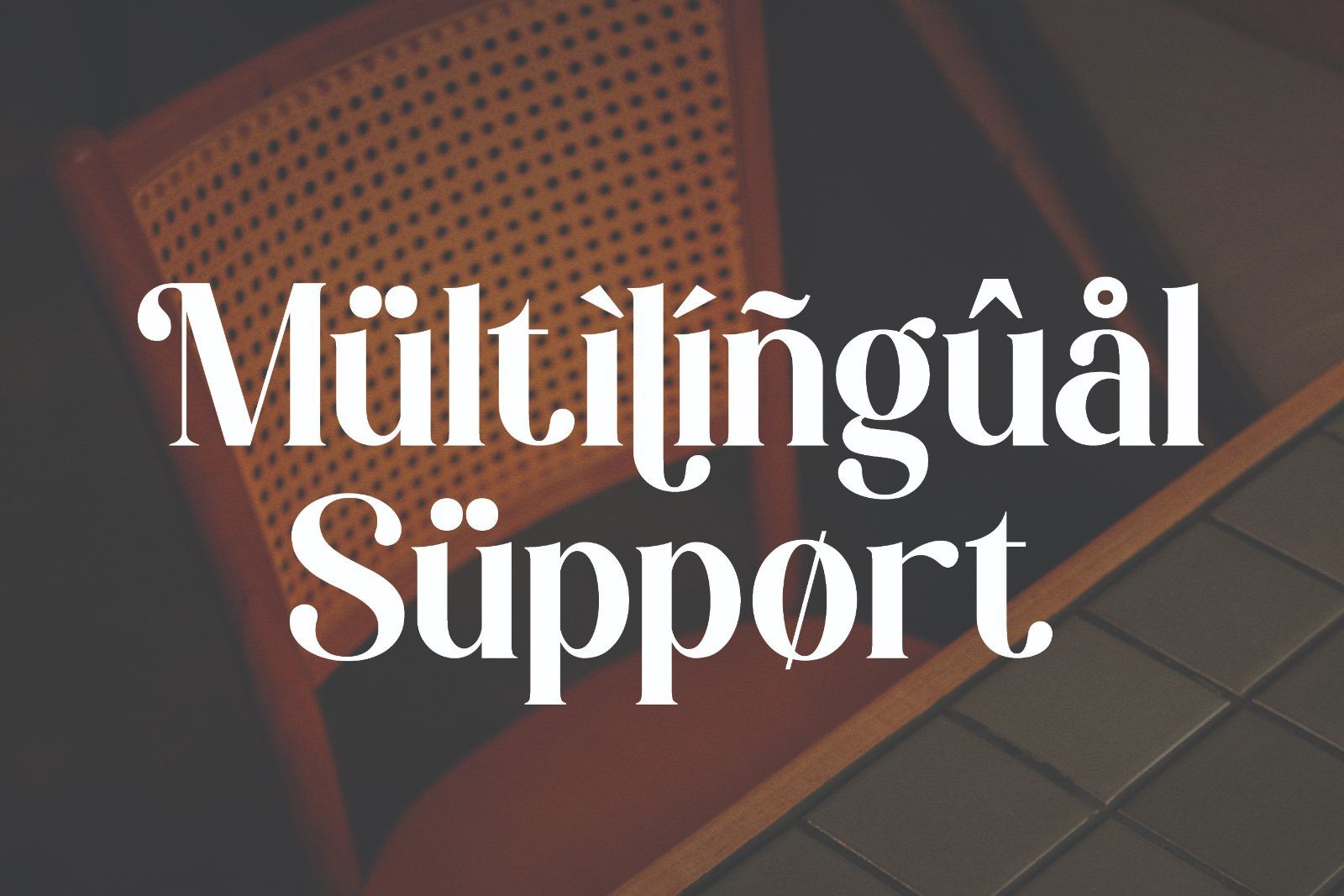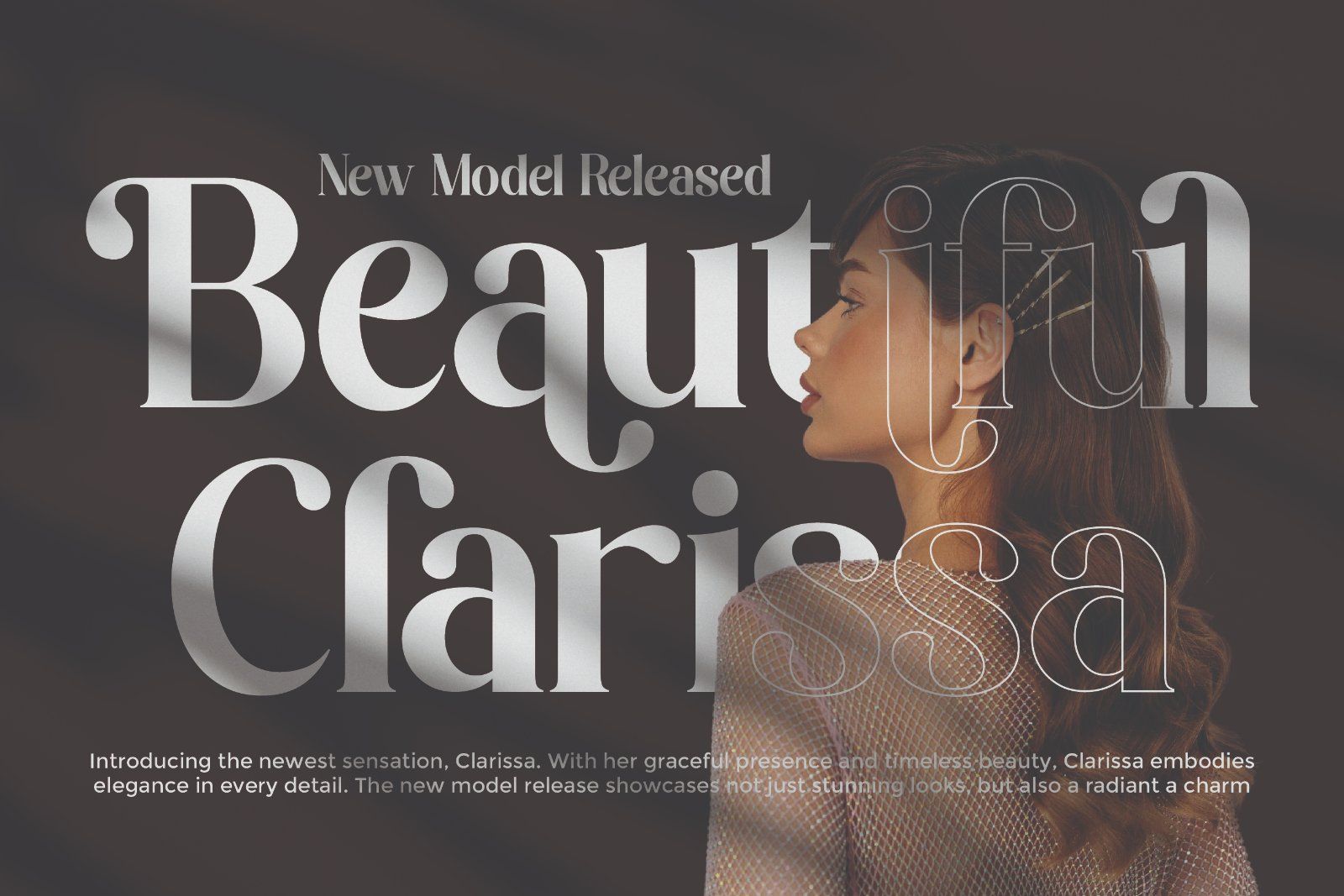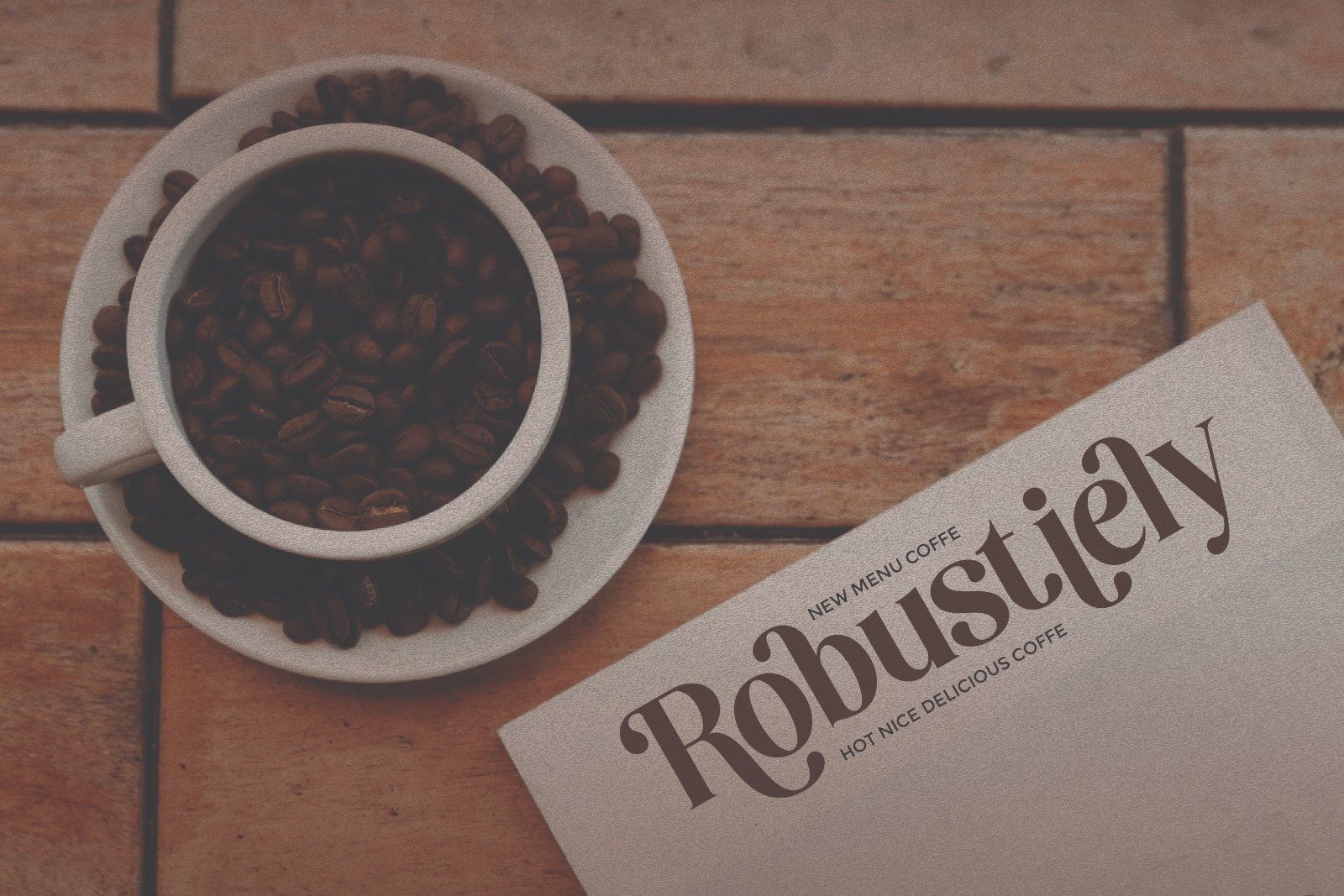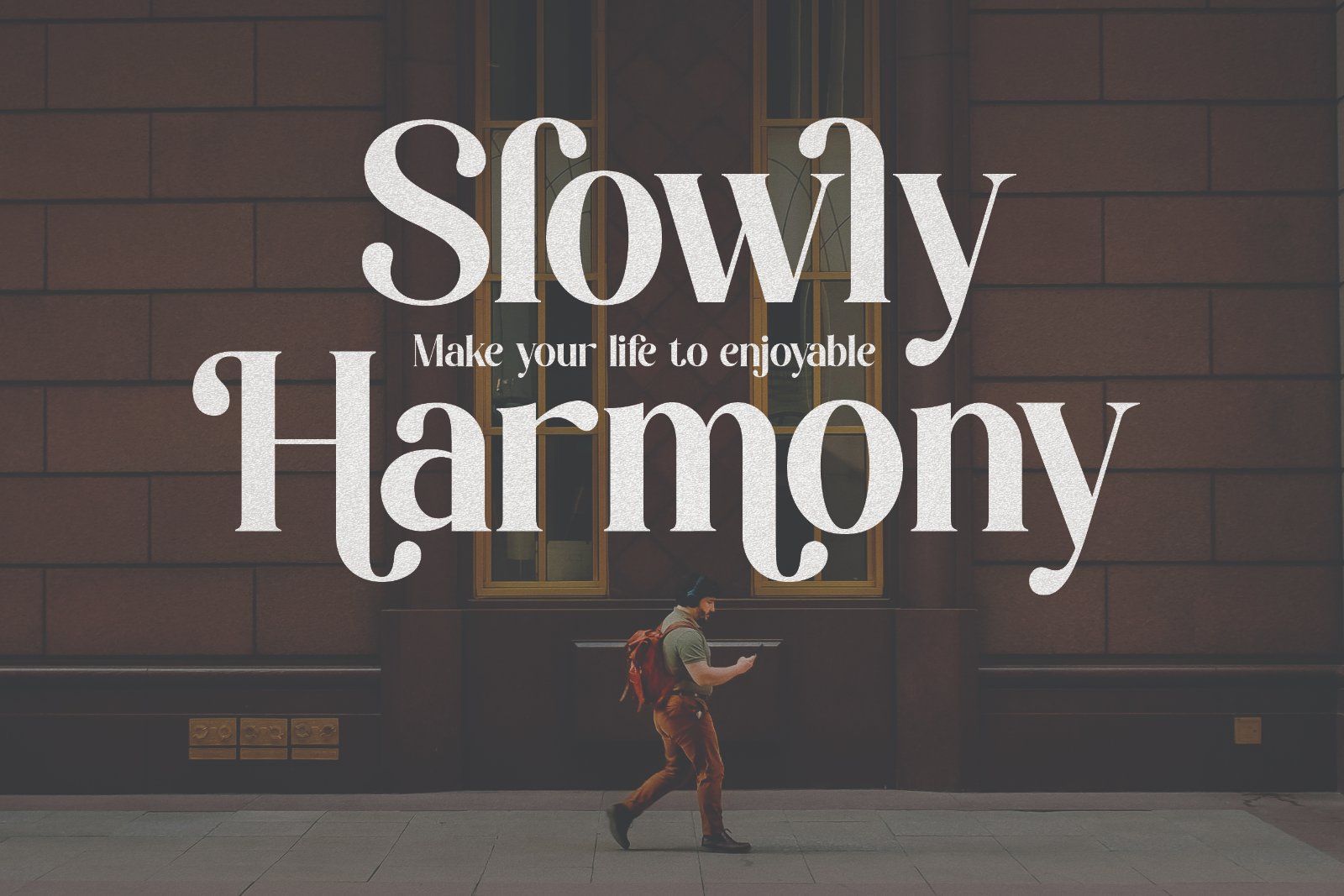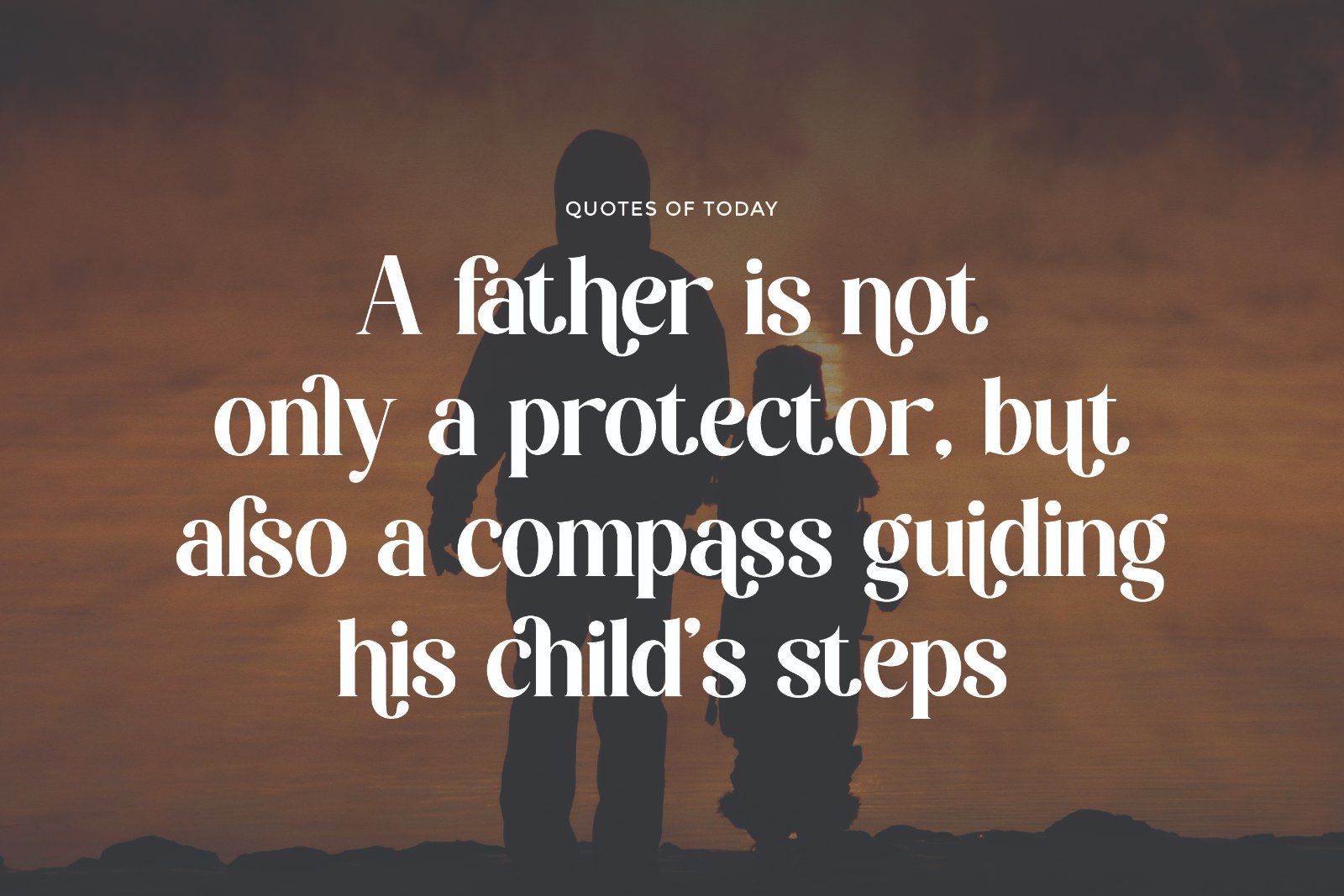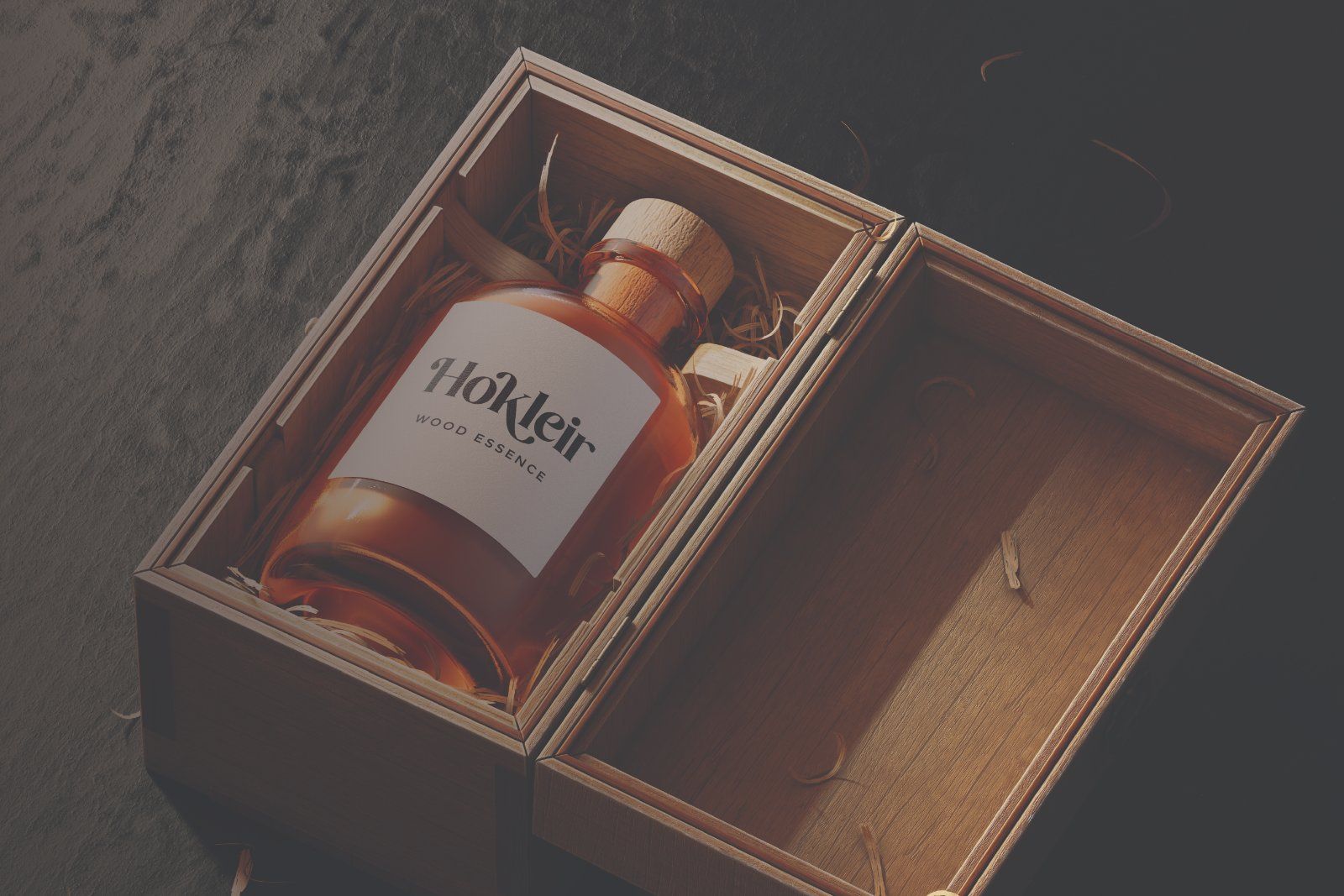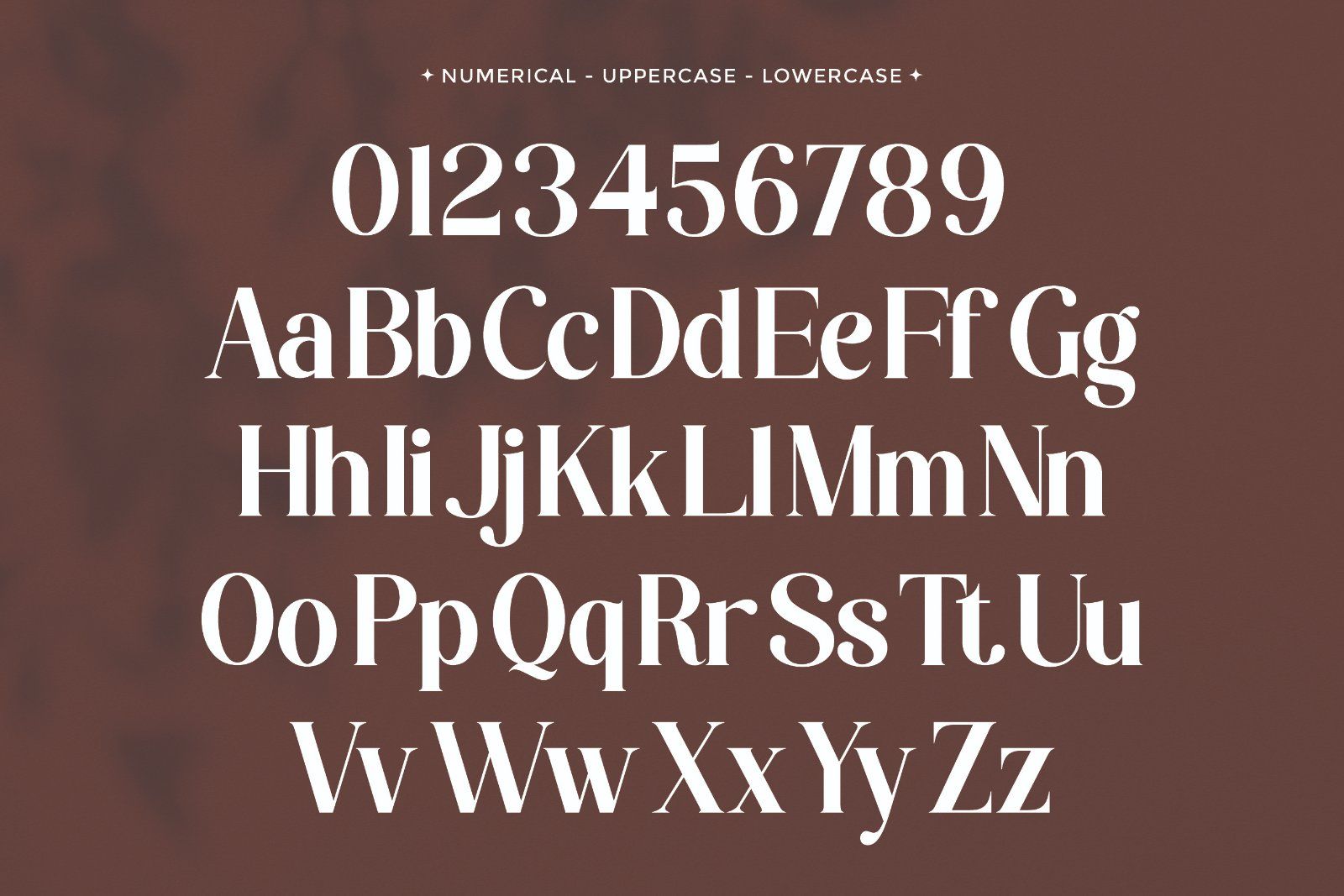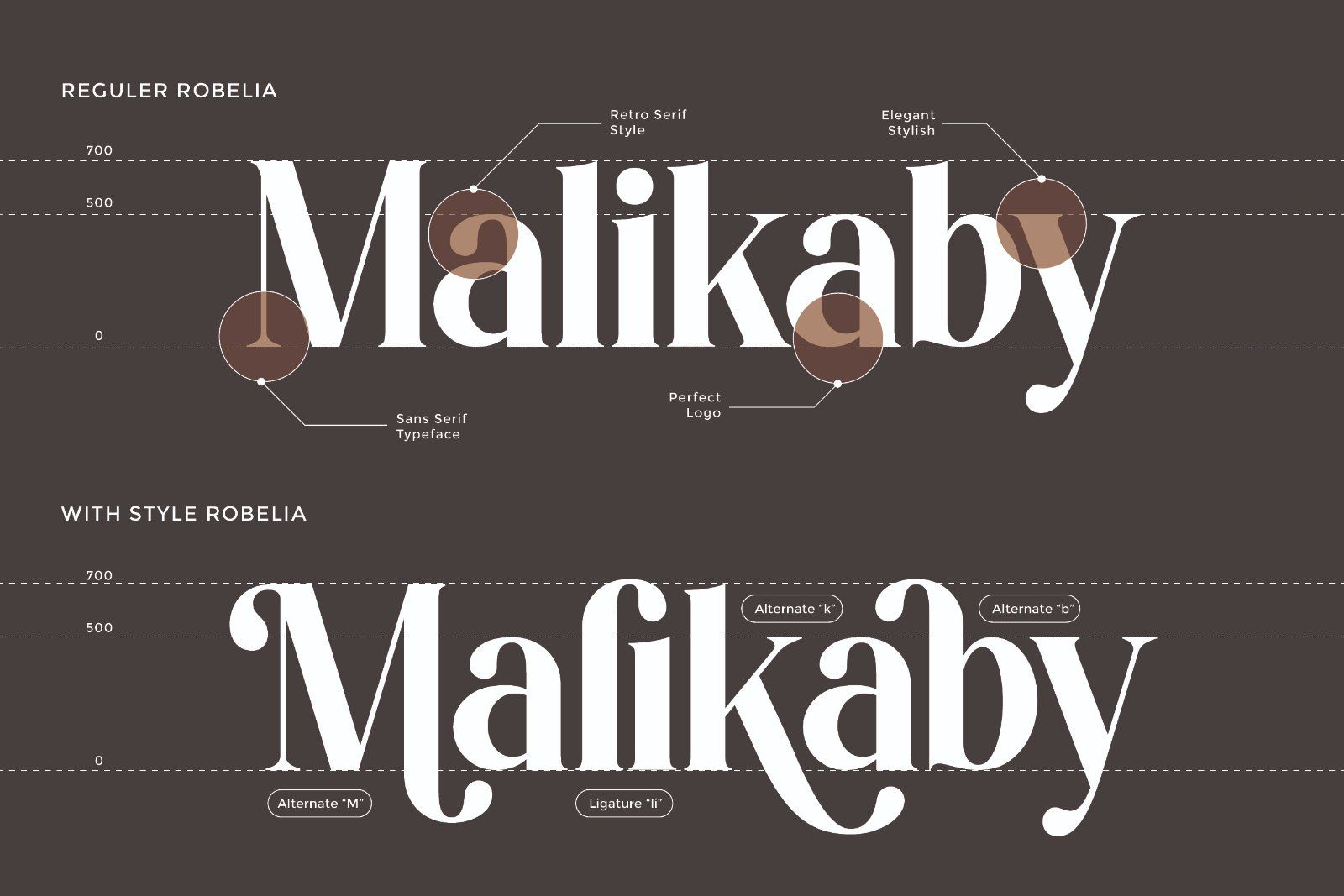
Robelia is a modern serif font that blends elegance with contemporary flair. With its refined curves, sharp serifs, and stylish details, Robelia captures a sense of sophistication while remaining versatile for a wide range of design needs. Perfect for branding, logos, editorial layouts, packaging, and social media projects, Robelia helps your work stand out with a touch of modern luxury.
• Uppercase alphabet A-Z
• Lowercase alphabet a-z
• Numbers 0-9
• Some punctuation
• Some Alternates and Ligatures